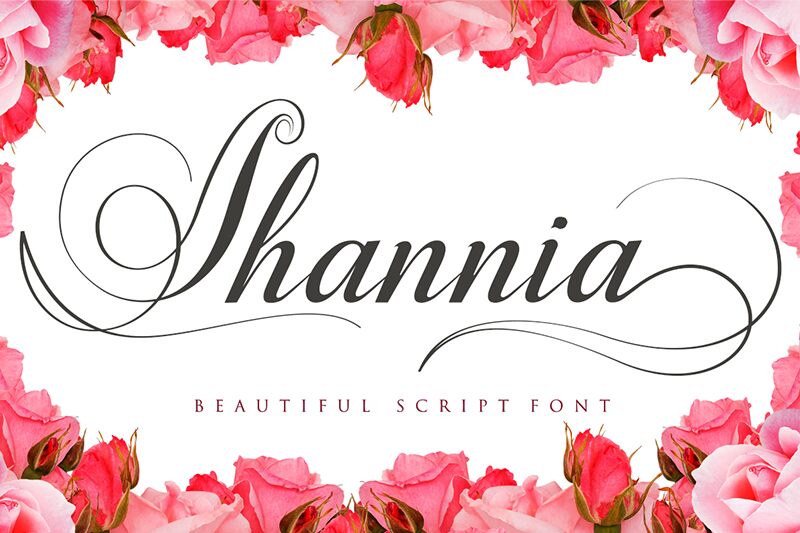
Shannia Bold, a captivating addition to the Shannia font family created by the talented designer Haris Gozali, is a stunning calligraphy typeface that demands attention. With its graceful curves and elegant strokes, this font is perfect for wedding invitations, luxury branding materials, and feminine blog headers. The boldness of Shannia Bold lends itself well to impactful headlines in fashion magazines or eye-catching advertisements. Its versatility allows it to be utilized in both digital and print designs, making it an ideal choice for designers seeking a sophisticated touch across various creative projects.